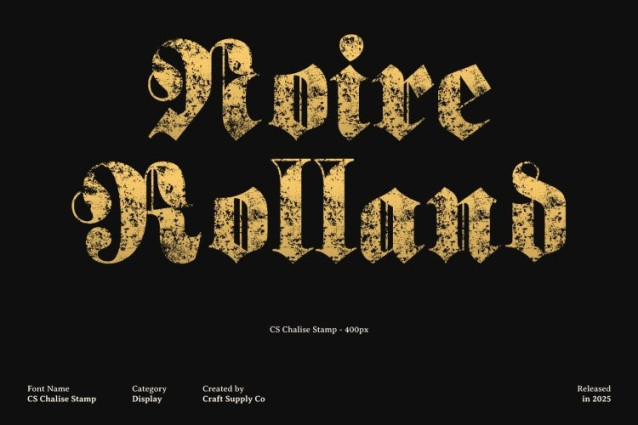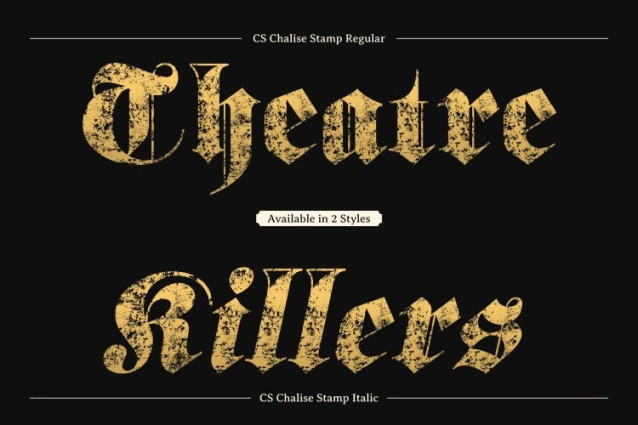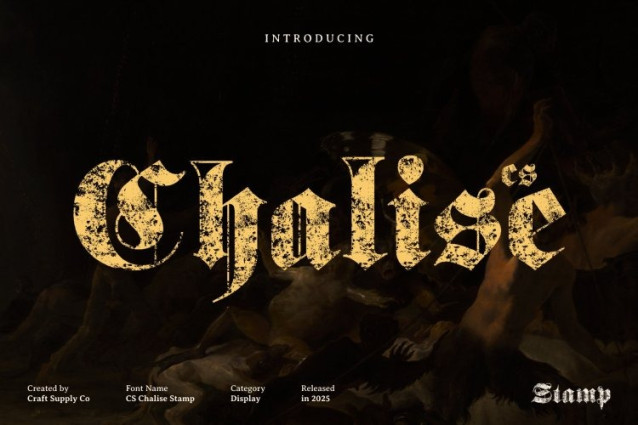
CS Chalise Stamp Font
CS Chalise Stamp Font This font display embraces the rich tradition of blackletter typography, offering bold, ornate letterforms that instantly evoke a strong sense of history. Its classic and decorative shapes make every word feel authoritative, artistic, and deeply rooted in cultural heritage.
Dramatic Presence for Powerful Titles
Designed for display use, commands attention with its sharp angles, intricate curves, and expressive weight. Its striking structure makes it perfect for titles, headlines, and focal layouts that need to communicate strength, tradition, and sophistication.
Vintage Appeal Through Stamp Texture
The added stamp effect enhances the historical tone, giving the font a weathered, aged appearance. This textured finish introduces drama and authenticity, making your designs feel timeless, tactile, and visually rich ideal for projects inspired by the past.
Perfect for Editorial, Artistic, and Heritage Designs
From magazine covers and classic newspaper layouts to posters, branding, and cultural exhibitions, adapts beautifully to designs that value artistic heritage. Its blend of bold blackletter forms and vintage texture creates a memorable aesthetic, perfect for projects that celebrate history while maintaining strong visual impact.